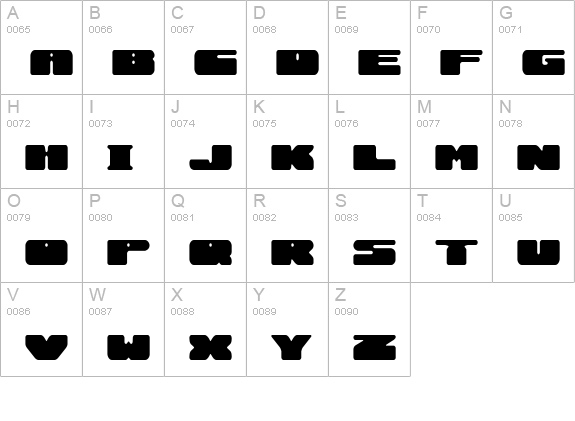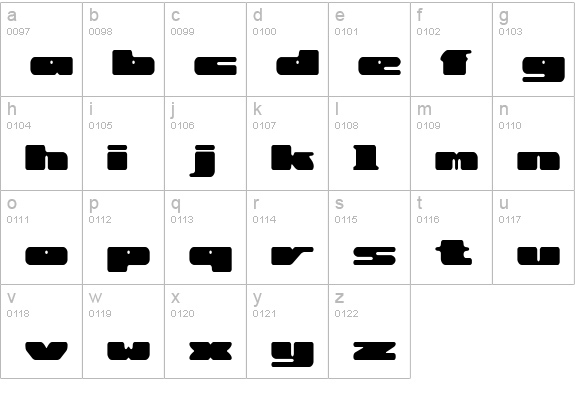
Rotund BRK Font Details
Rotund BRK font is a bold and eye-catching typeface that exudes a sense of modernity and confidence. With its rounded and slightly exaggerated letterforms, this font is perfect for making a statement in headlines, logos, and other design projects. The generous curves and sturdy lines of Rotund BRK give it a strong presence on the page, making it ideal for grabbing attention and adding a touch of personality to your work. Best of all, Rotund BRK font is available for free download at FontsMarket.com. Whether you're a designer looking to add a dynamic element to your projects or a business owner in need of a distinctive branding solution, Rotund BRK font offers a versatile and stylish option that won't break the bank. So go ahead and give your designs a boost with this striking and accessible typeface today!